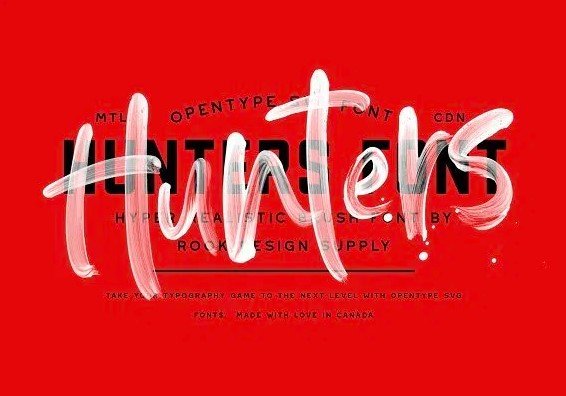
If you want to create more appealing designs effortlessly, you should definitely download the typeface we are introducing today: Hunters Font. This fantastic calligraphic typeface has an incredible handwritten appearance and was released by Lettersior Studio.
Lots of designers are available who loved this great font, because of its handy look and calligraphic texture it was loved by every graphic and web designer.